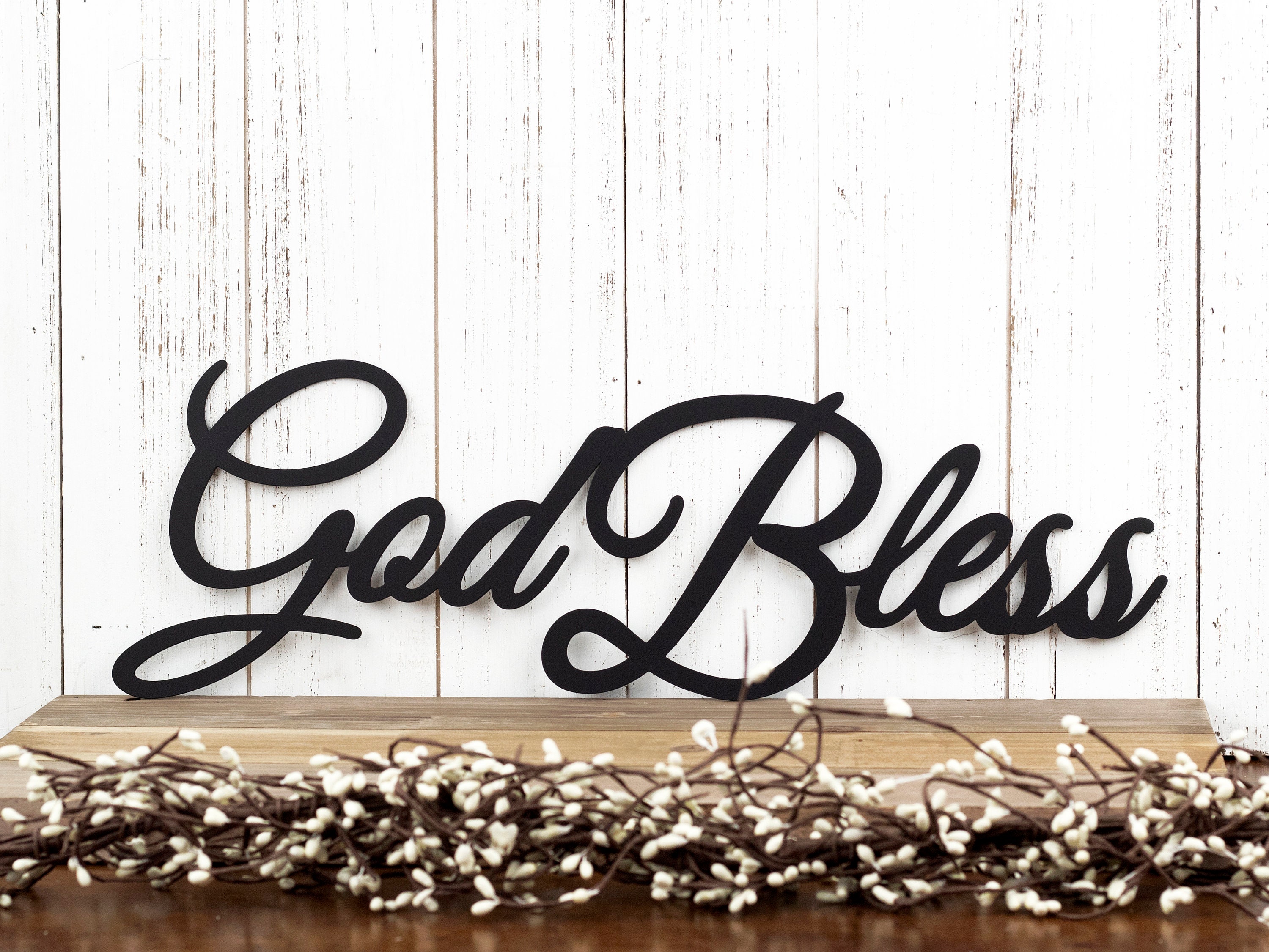
God Bless Font
God Bless Font - Its delicate and joyful demeanor makes it the. Hello, if you want to use this font, please contact me before any commercial use. My fonts are not allowed for: “godbless” is a slender and exquisitely crafted handwritten font that radiates elegance and grace. Tv / cinema / sex content /.